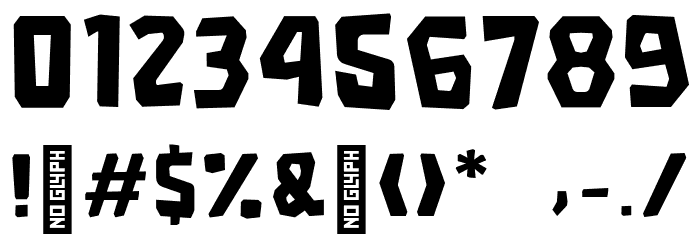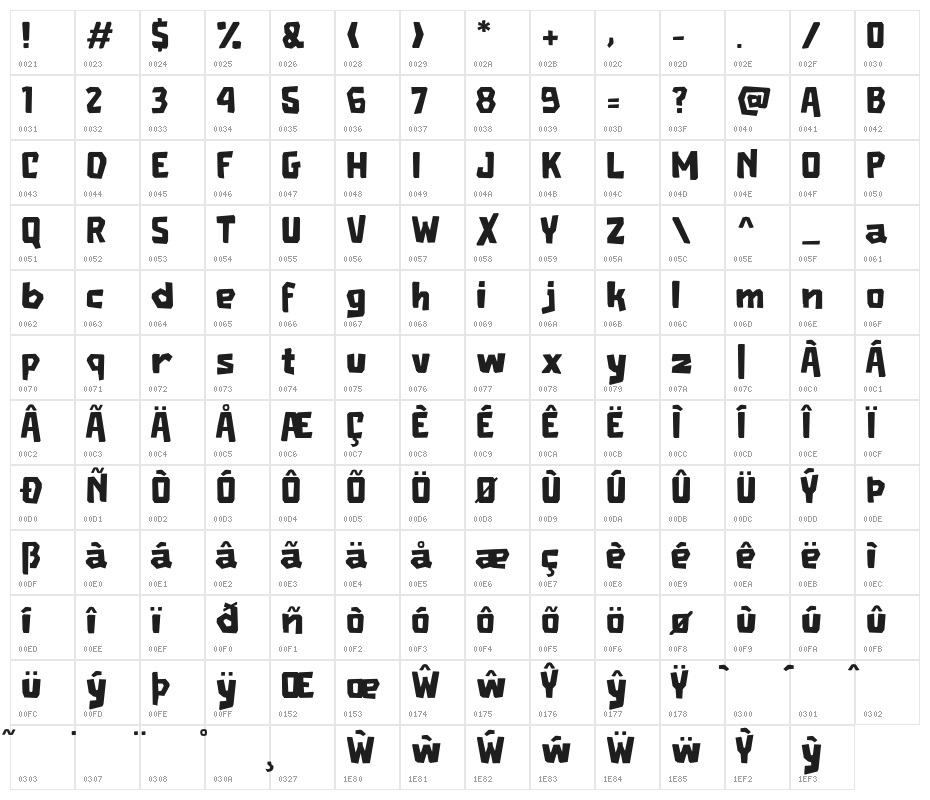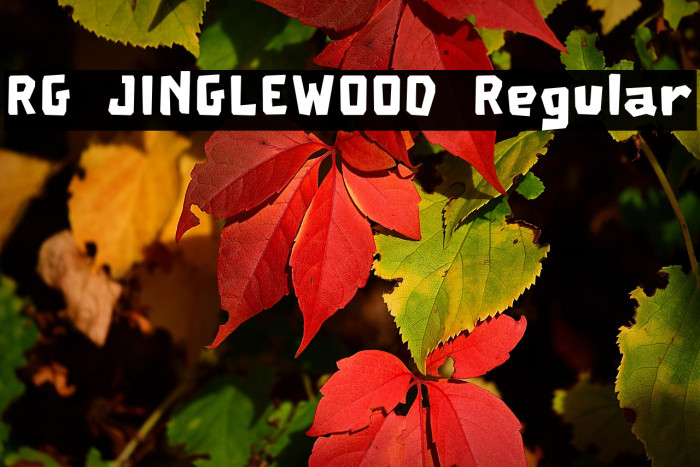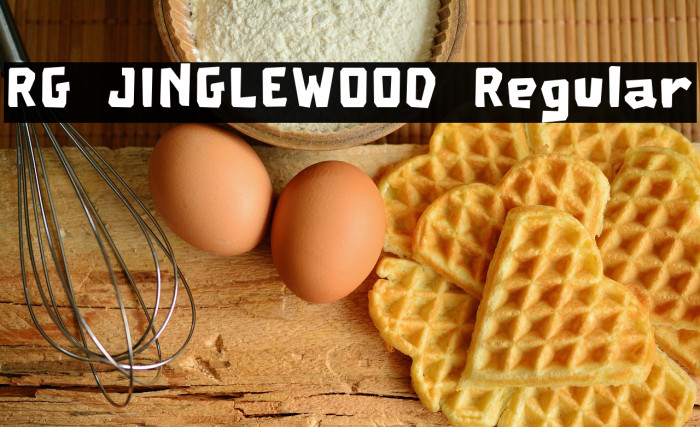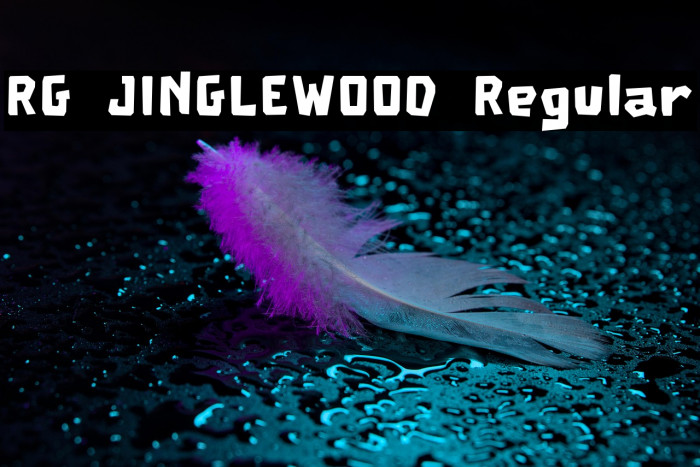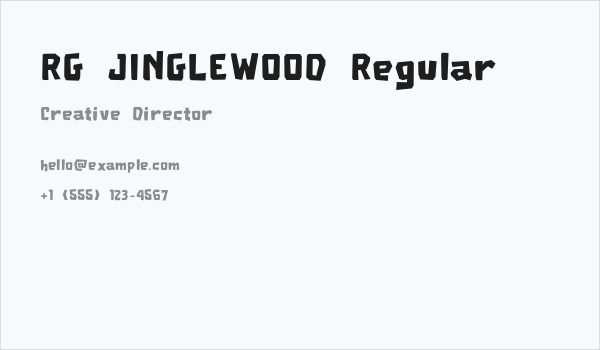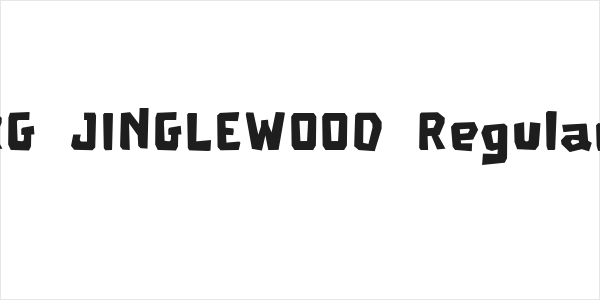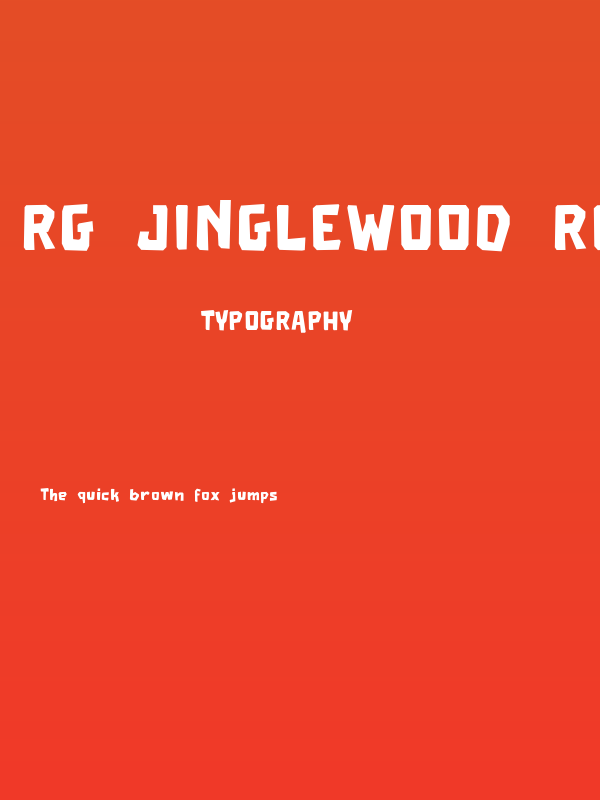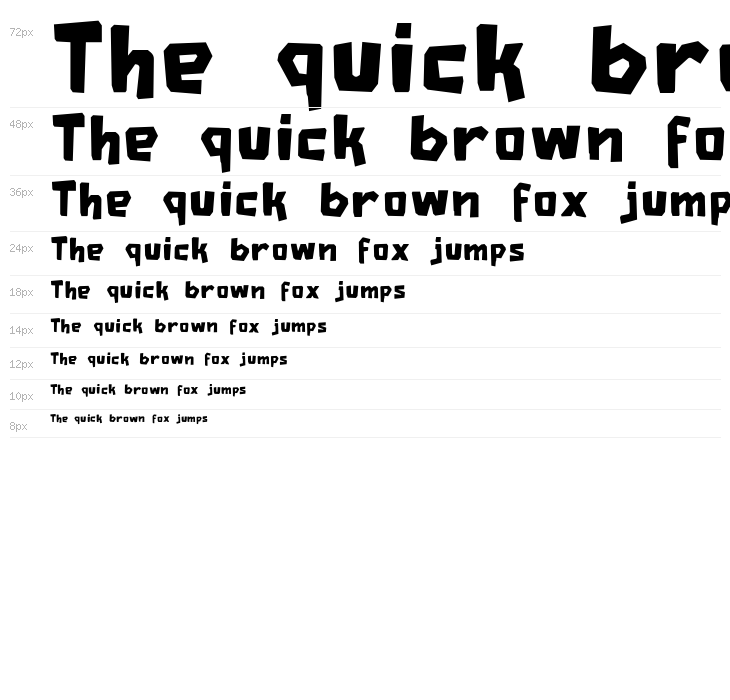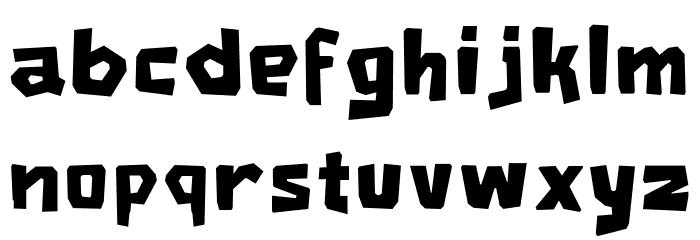
RG JINGLEWOOD Regular Font
RG JINGLEWOOD Regular Description
This font features a bold and playful design with a distinctly irregular and handcrafted appearance. The characters have a slightly jagged and uneven edge, giving them a unique, whimsical feel. The uppercase and lowercase letters maintain a consistent style, with a strong presence and a touch of quirkiness. The numbers are equally bold, matching the overall aesthetic of the letters. Special characters are included, maintaining the same playful style. This font is ideal for projects that require a fun and engaging look, such as children's books, posters, or creative branding.
Overall StylePlayful, Whimsical
Proposed ProjectsIdeal for children's books, posters, creative branding, and playful designs.